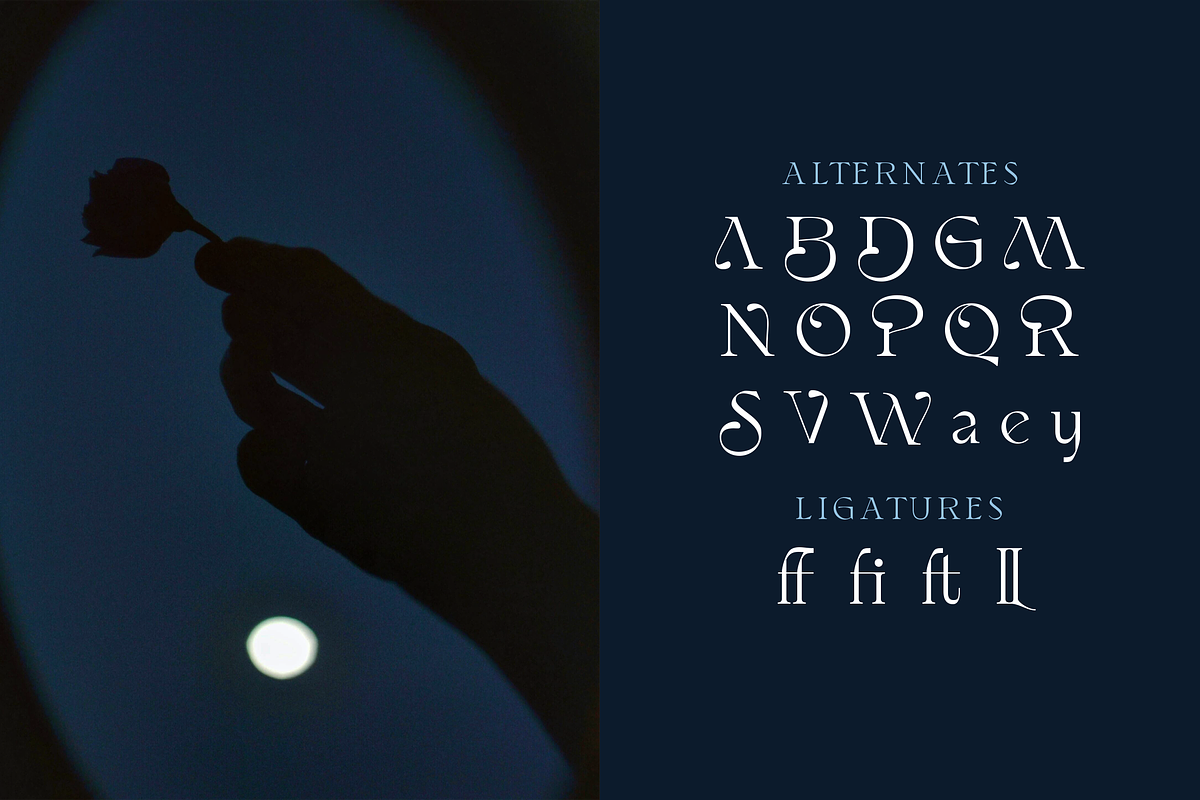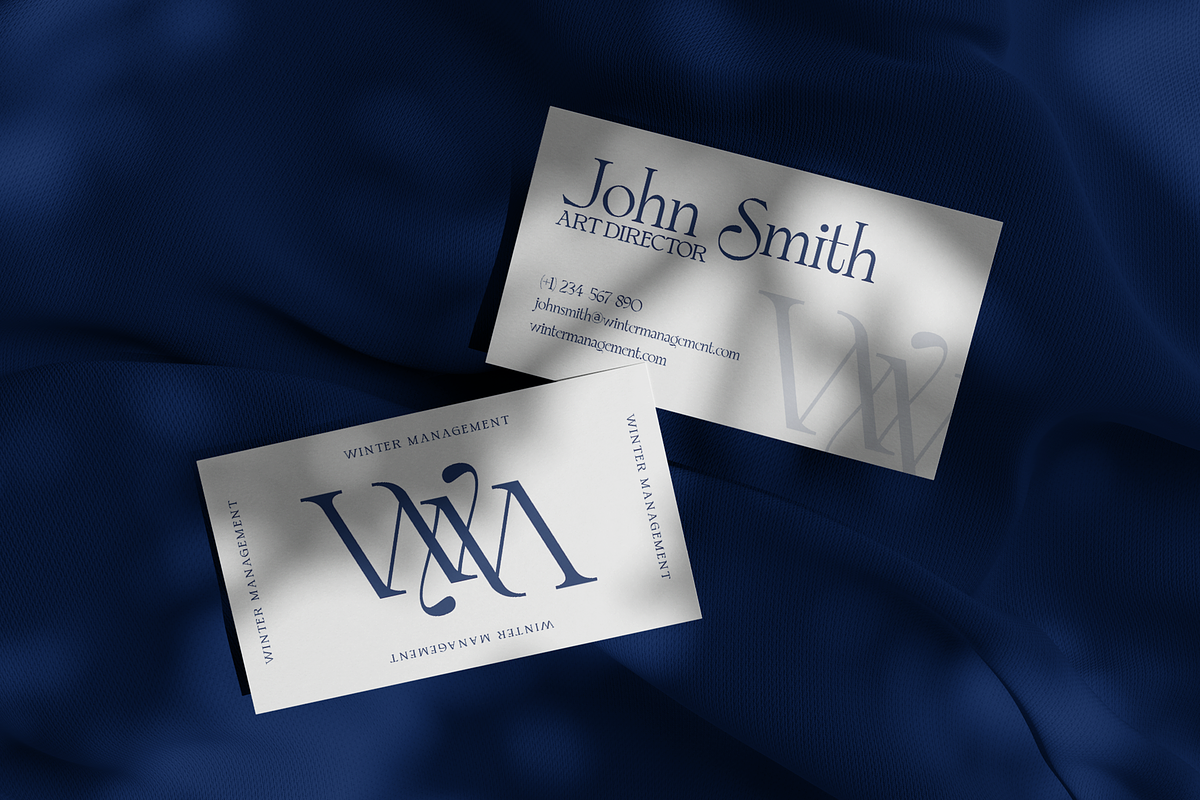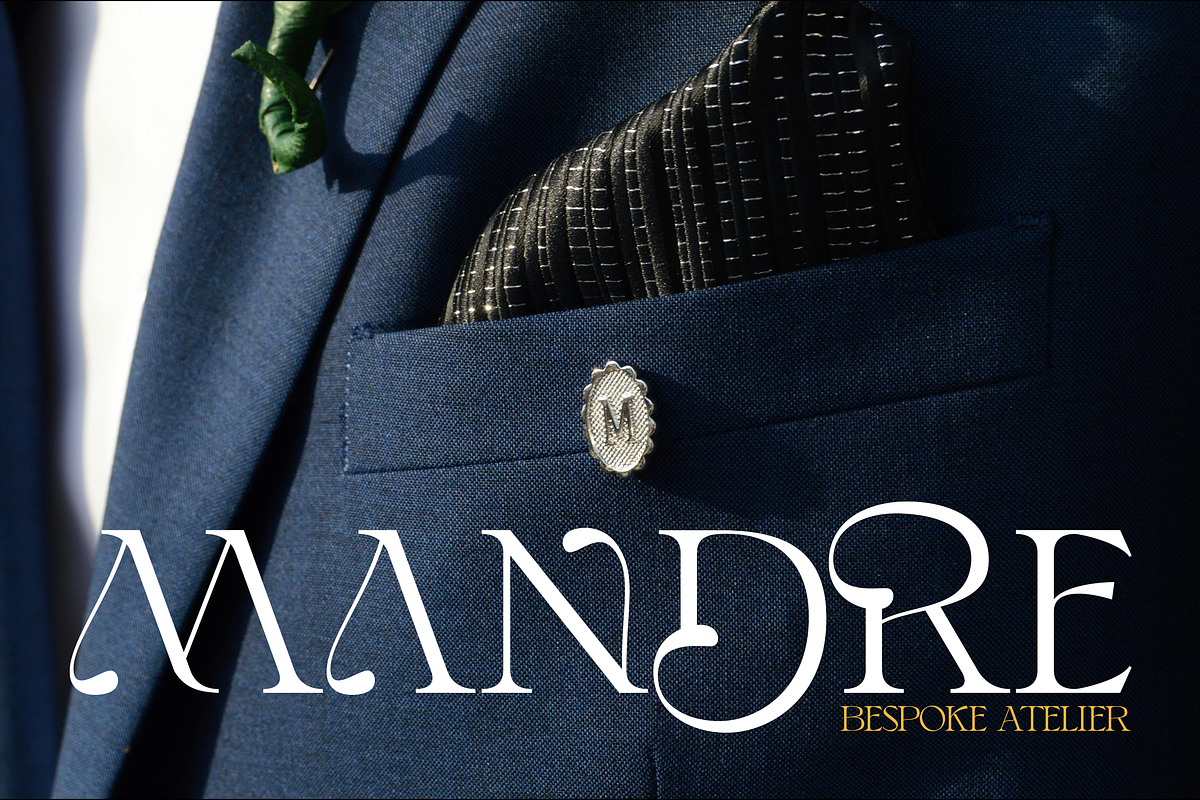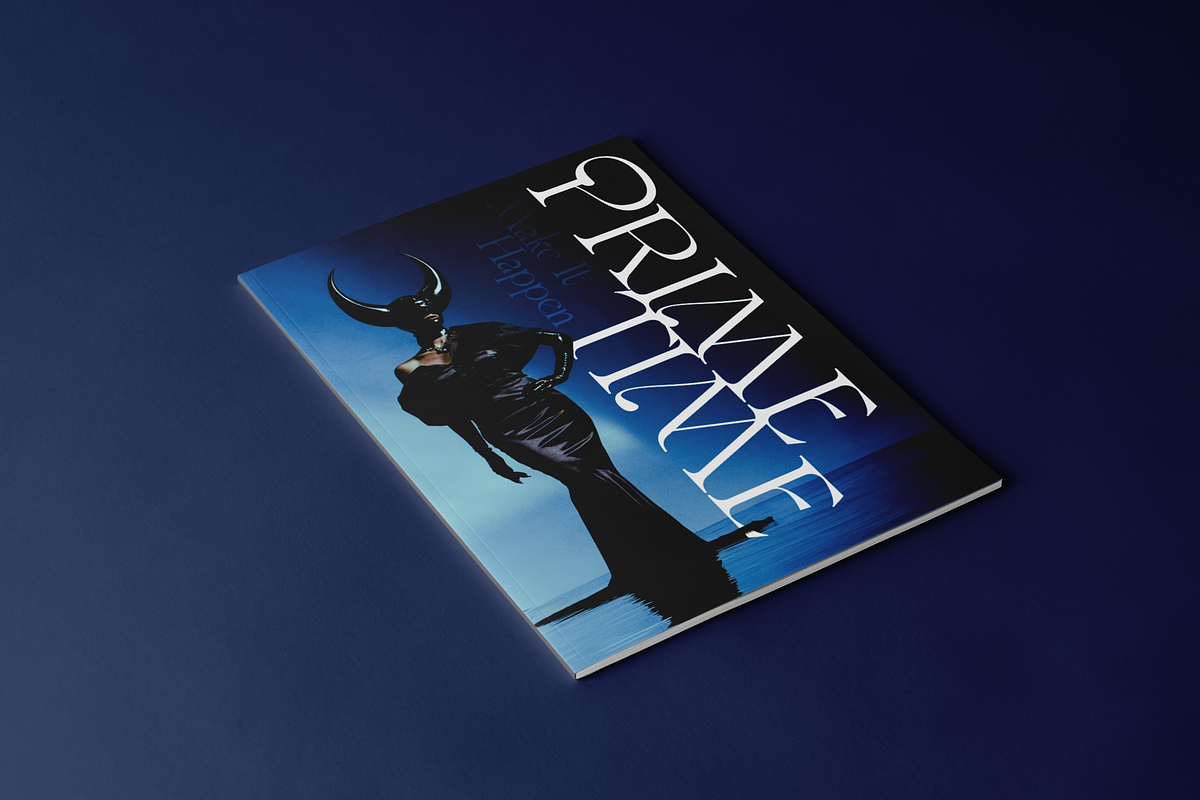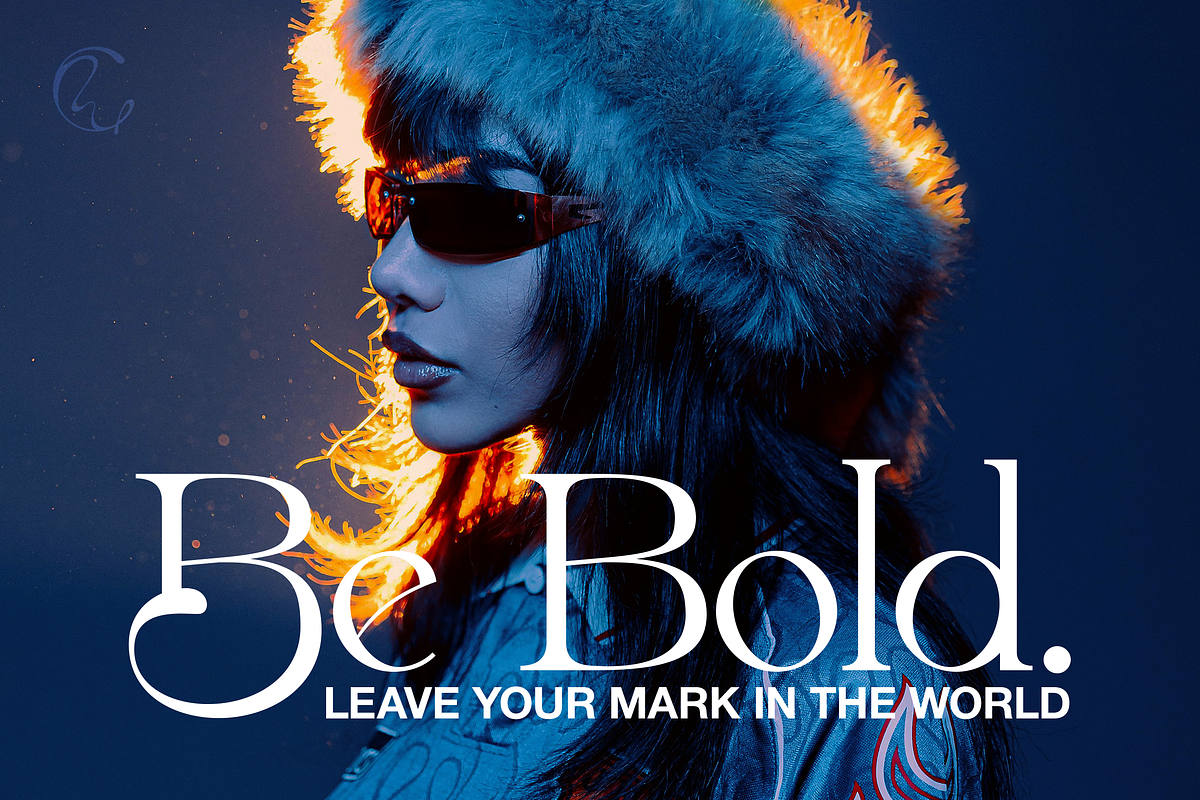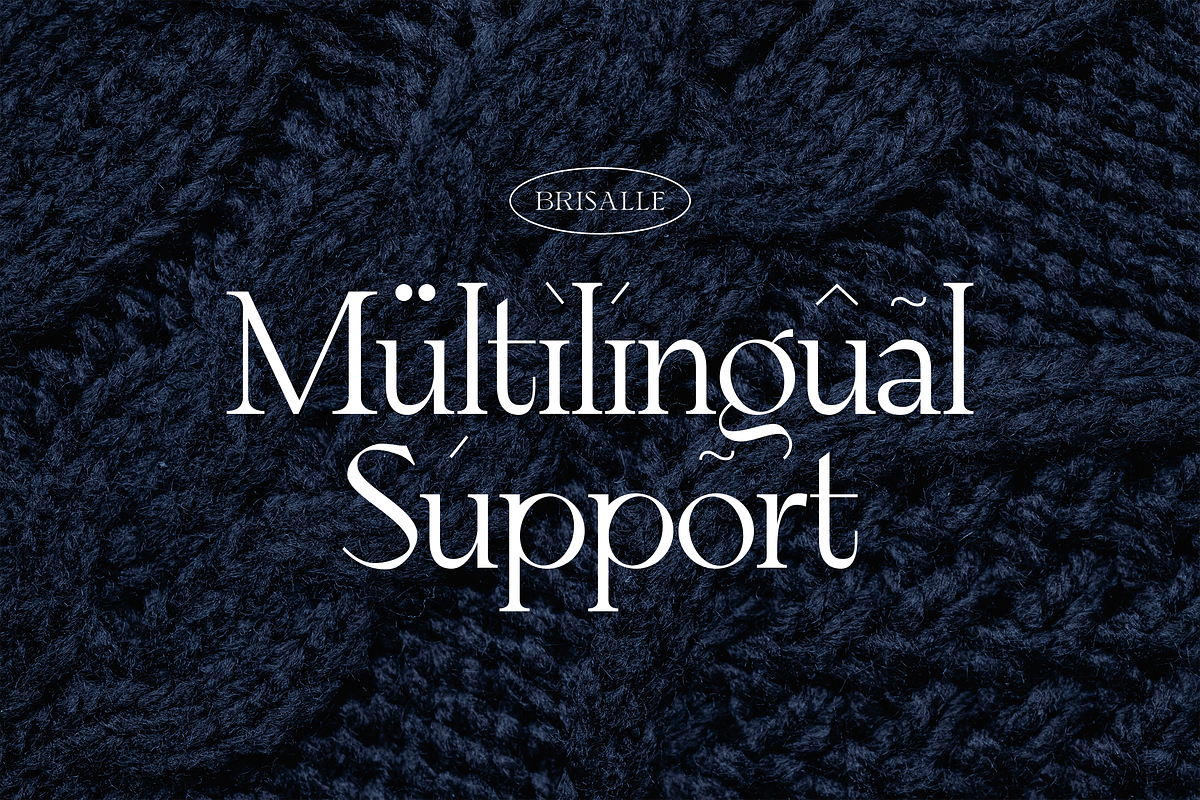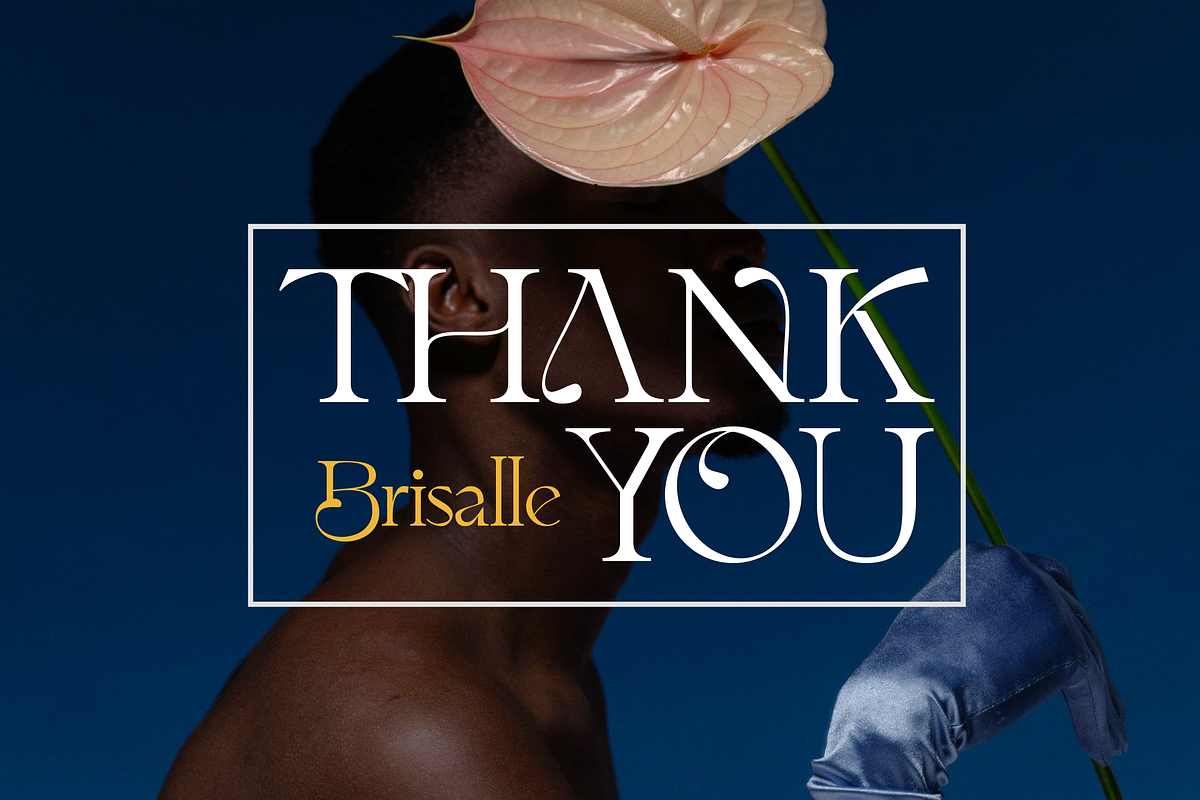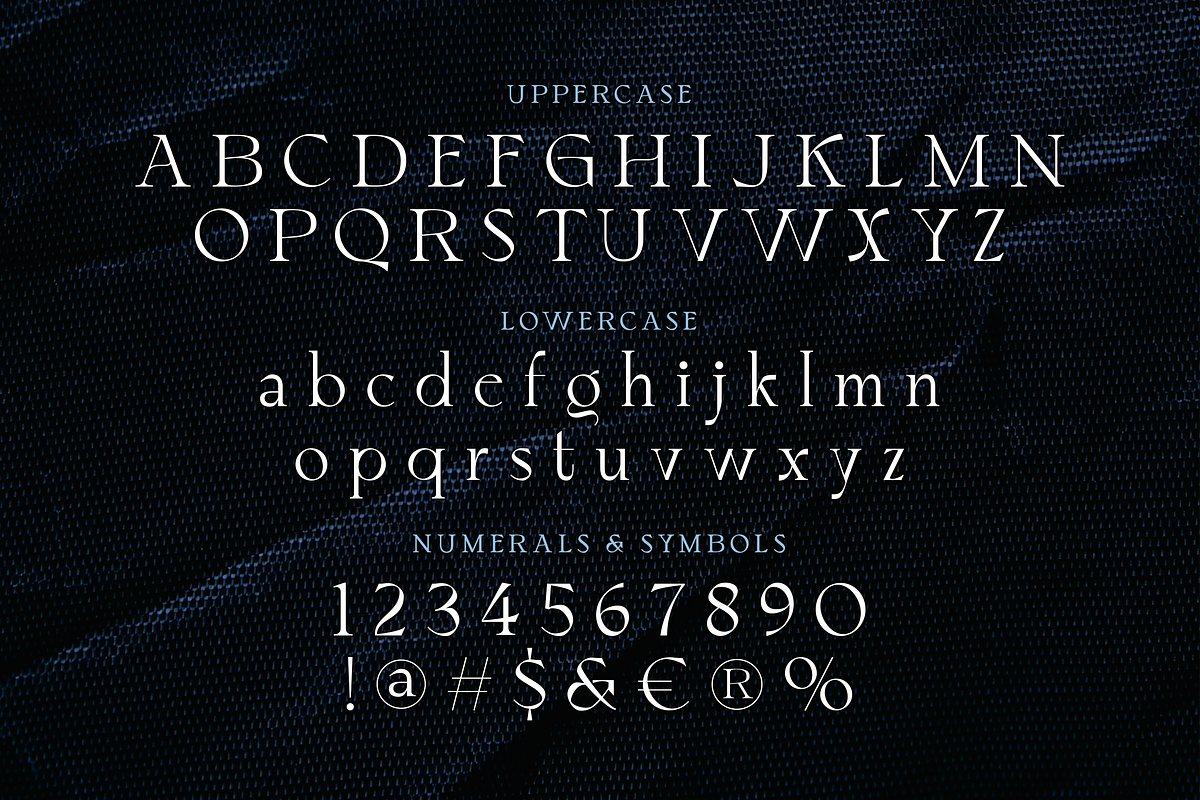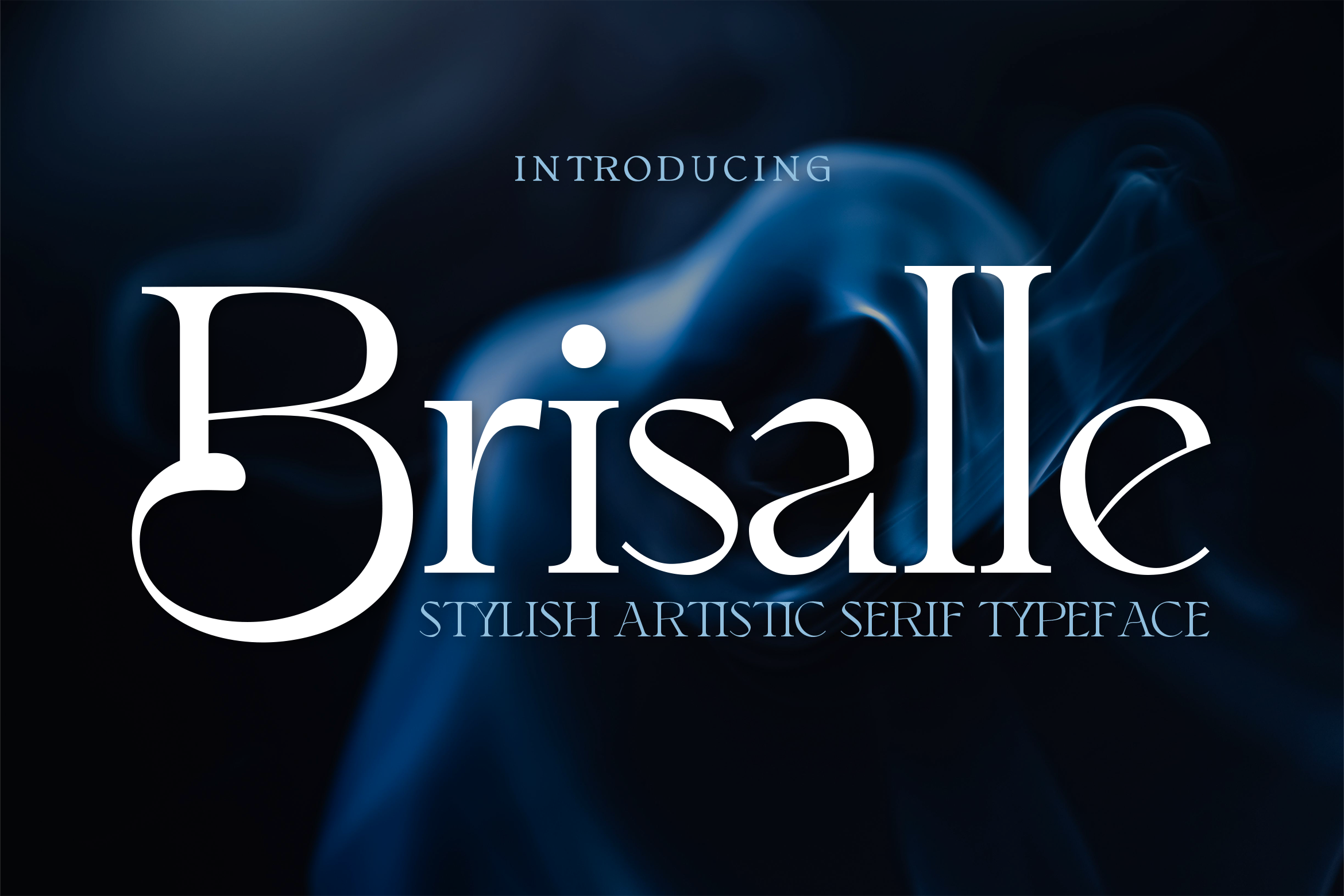
Brisalle Stylish Artistic Font
Brisalle combines elegance and creativity, making it perfect for adding character to your designs. Use it for logos, invitations, branding, editorials, websites and more. Each letter is crafted with artistic precision, bringing sophistication and charm to your work.
Let Brisalle transform your text into a timeless expression of style and beauty.
- Multilingual & Ligature Support
- Full sets of Punctuation and Numerals